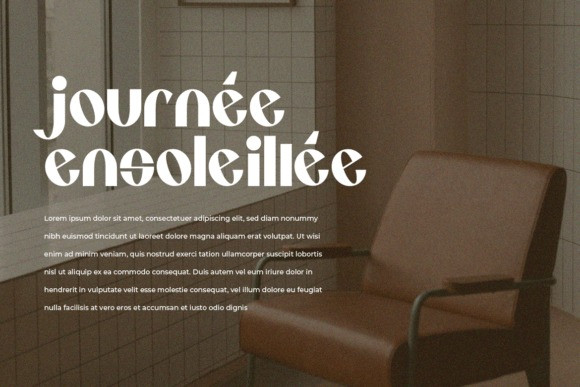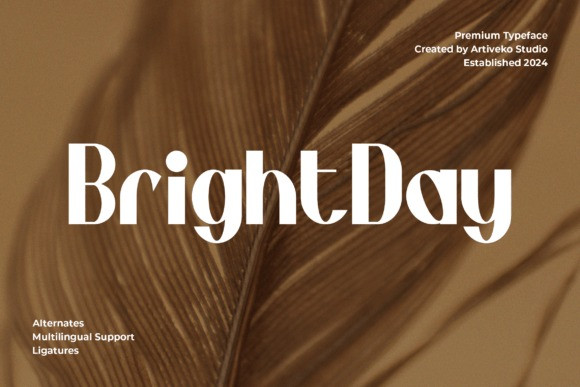
Brightday Font
BrightDay Font is a premium sans serif font by Iwan Alwan, characterized by its sleek, elegant letterforms that combine sophistication with modernity. Ideal for luxury branding, high-end editorials, and refined packaging, BrightDay adds a polished, professional touch to any design. With multilingual support, ligatures, and alternates, this font offers versatility while maintaining an upscale, stylish aesthetic, making it perfect for projects that require a premium and timeless look.
This fonts are great for product logo,wedding card logo, clothing brand logo, Vintage design and much more.